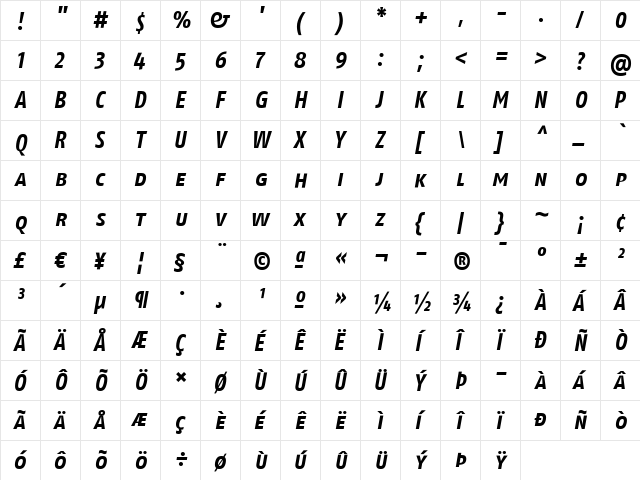
FagoCoBoldLf ItalicBold
| Foundry | Ole Schaefer, . Published by FontShop International for FontFont Release Fago Condensed is a trademark of FSI Fonts and Software GmbH |
Design Context for FagoCoBoldLf Typeface
FagoCoBoldLf offers clean, dependable letterforms without strong stylistic allegiance, making it a practical choice for designers who need flexibility. The dynamic lean of this cut emphasises speed and emphasis in any layout. Its bold stroke weight gives it real presence on the page.